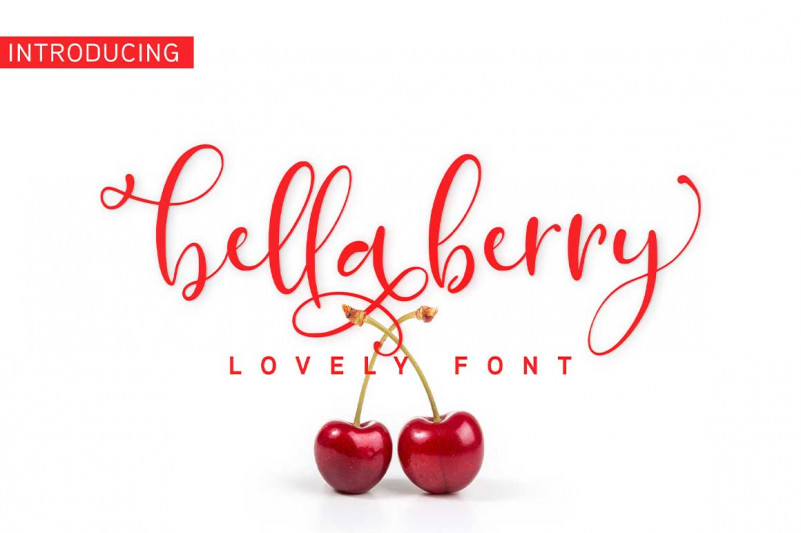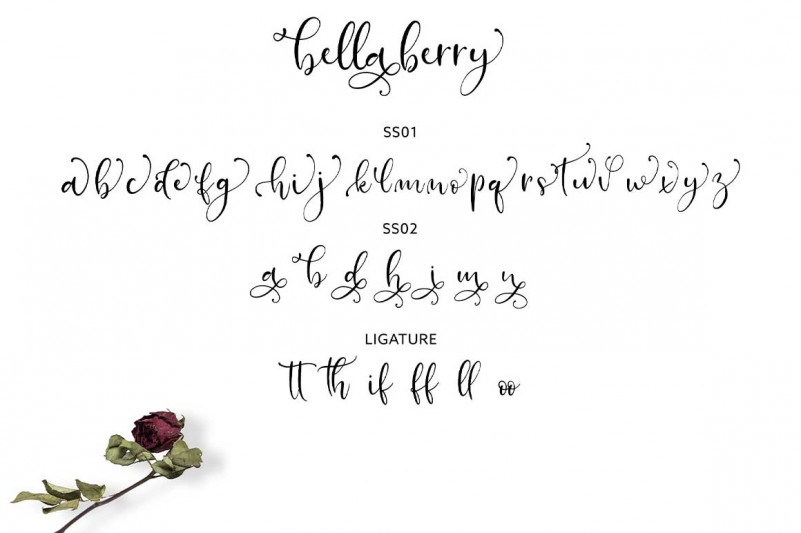
BellaBerry Script Font
BellaBerry Font – is a handmade font with passion and love. This script is very elegant with many styles, and with smooth and soft lines not much stained. It’s designed and shared by Juncreative. It’s a lovely script featuring uppercase and lowercase letters, multilingual symbols, numerals, punctuation and, on top of everything else, pretty lowercase swashes. Use it to add some romantic charm to invitation cards, branding, stationery designs, birthday designs, quotes, crafts or anything else that needs an authentic and playful twist.